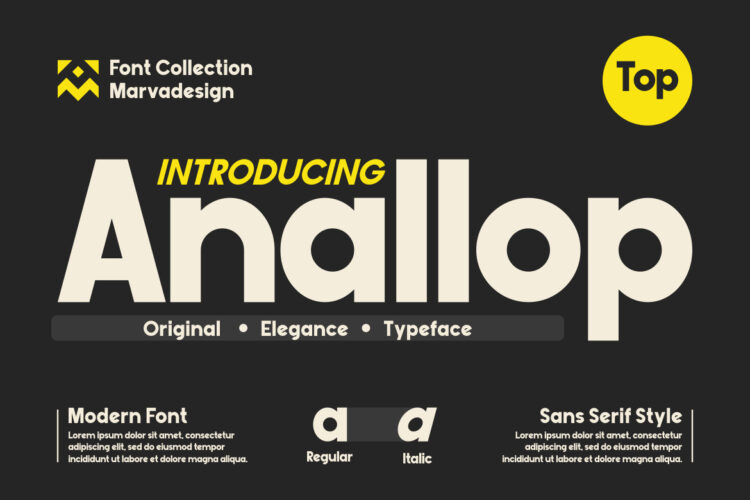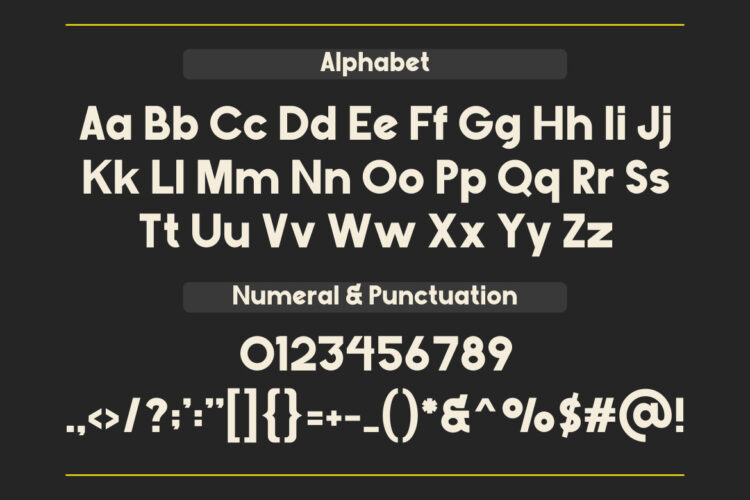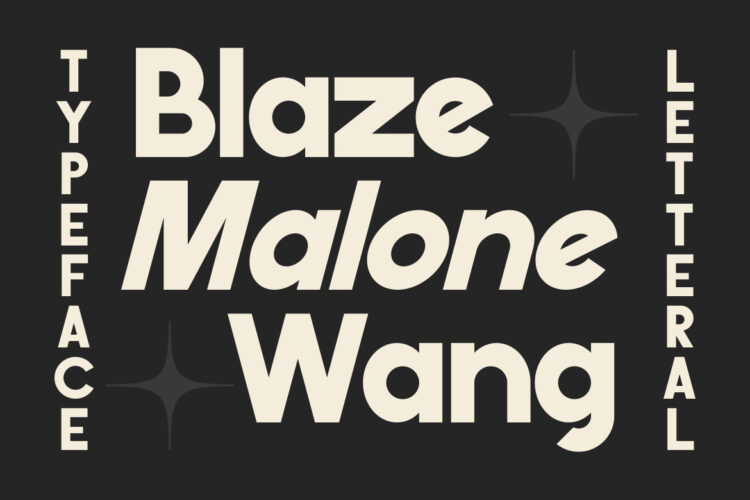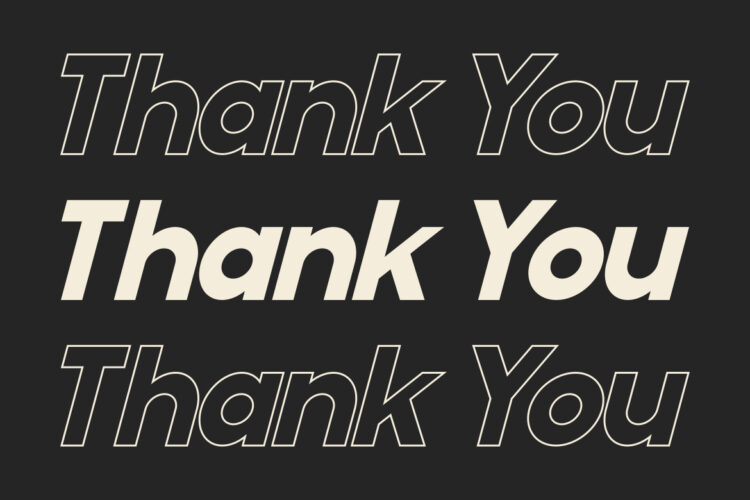
Modern Sans Serif Typeface
Anallop is a bold geometric display sans serif typeface designed to make a strong visual impact through its oversized proportions, clean construction, and contemporary character. The typeface features a highly structured design language built from rounded geometric forms and thick, uniform strokes, creating a confident and approachable appearance. Its wide letterforms, generous counters, and soft curves provide excellent visual balance, allowing headlines to feel both powerful and friendly.